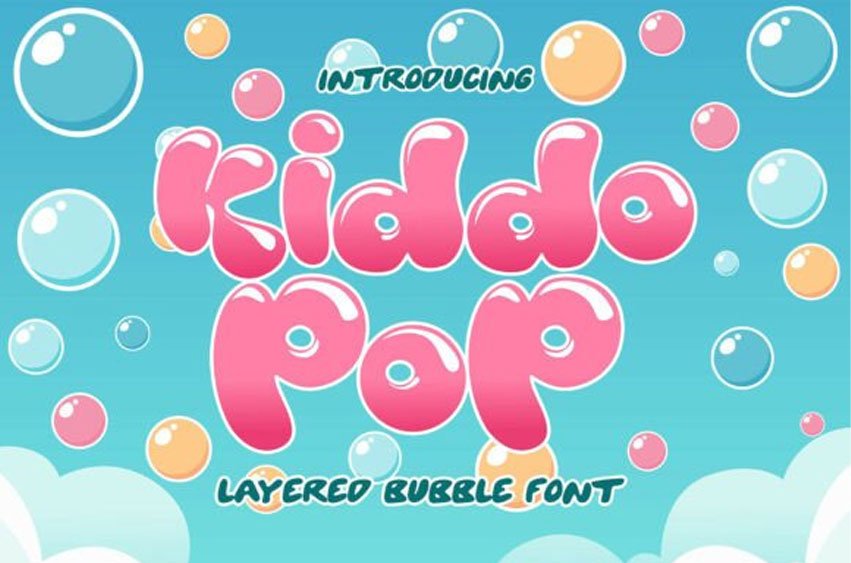
Kiddo Pop Font Discover the colorful charm of Kiddo Pop, an exuberant font soaked in joy and vibrant colors. With its soft, chubby lettering and twinkling layered effect, it’s ideally suited to animate children’s book illustrations, skyrocket the appeal of toy packaging, enhance the appeal of candy tags, infuse celebration into party invites, and sprinkle a dash of whimsy to YouTube thumbnails or lively social media graphics.
Kiddo Pop is comprehensive, including uppercase and lowercase letters, numerals, punctuation marks, alternates, and multi-language support, providing the necessary elements to make your creative endeavors fizz with excitement and luminosity.